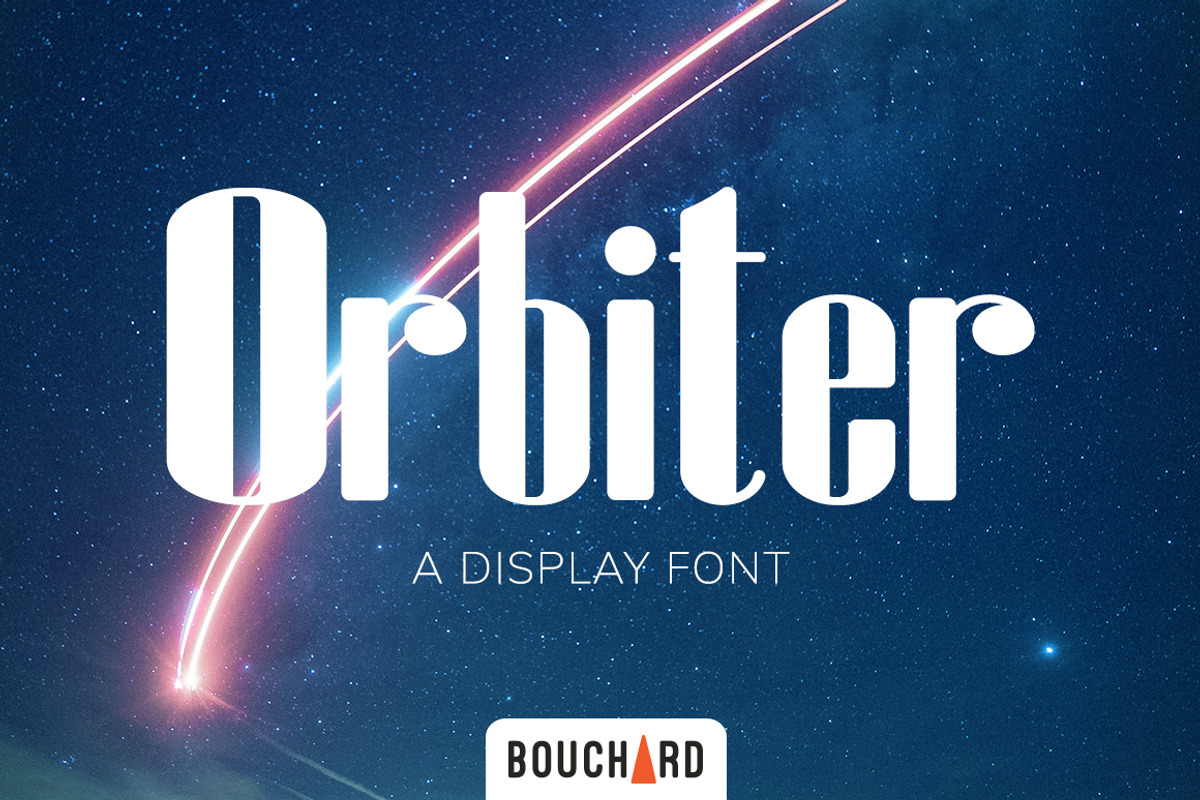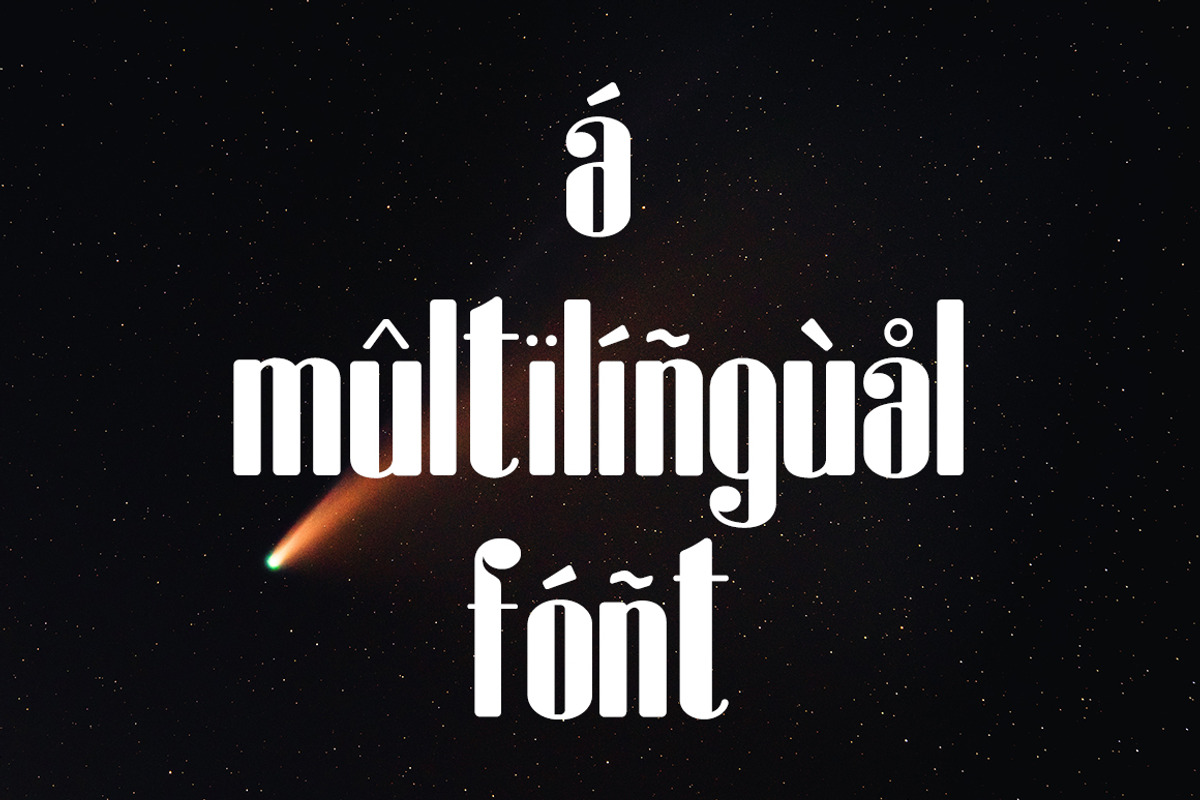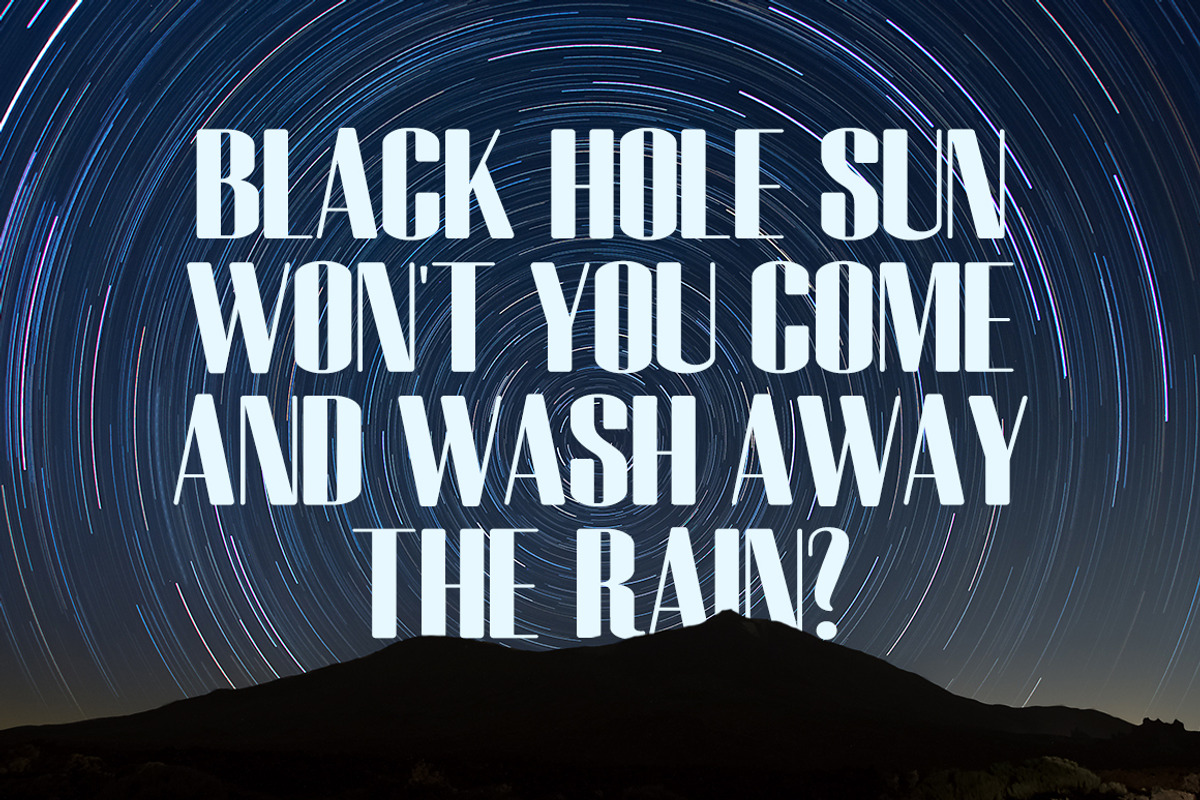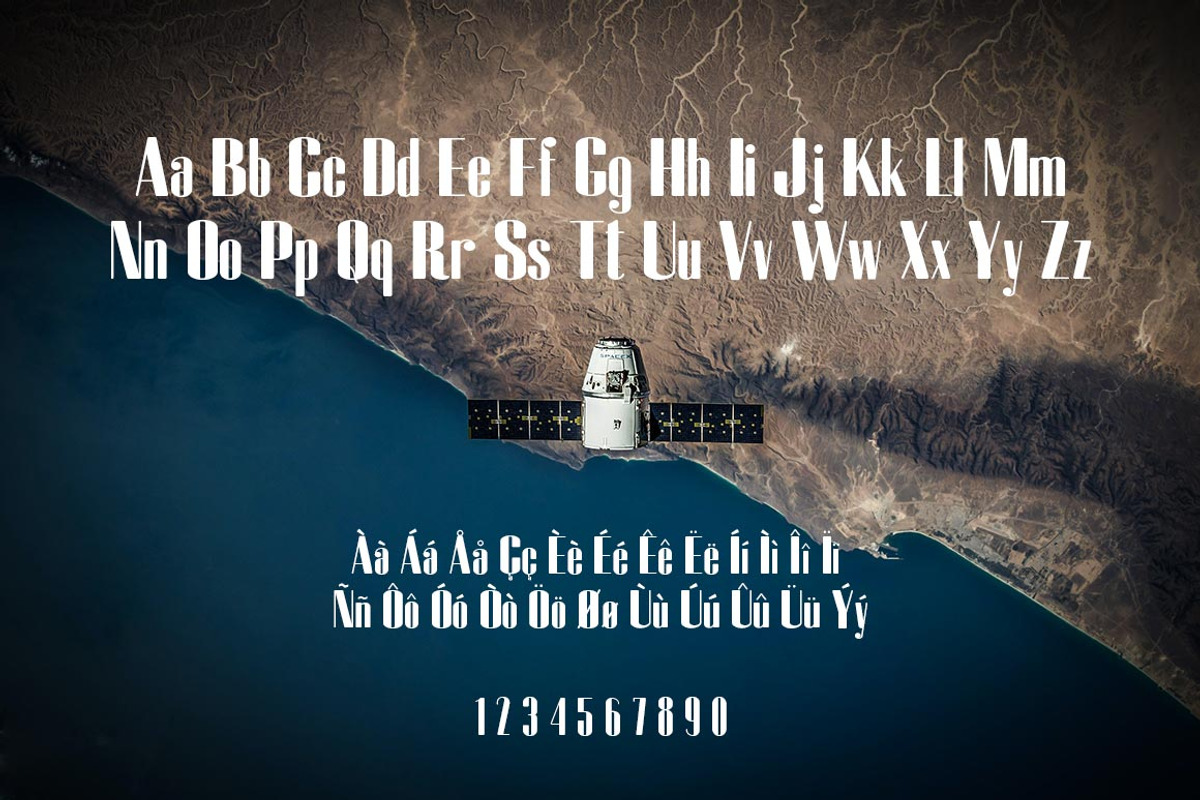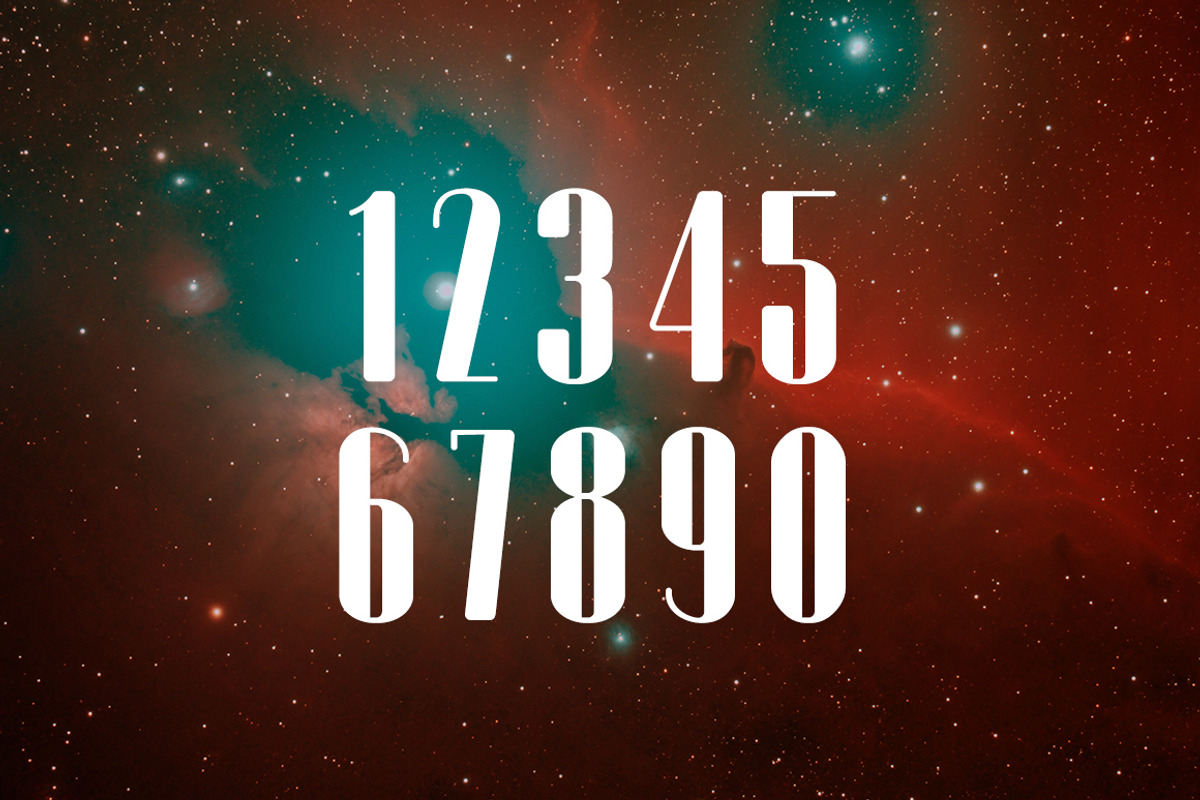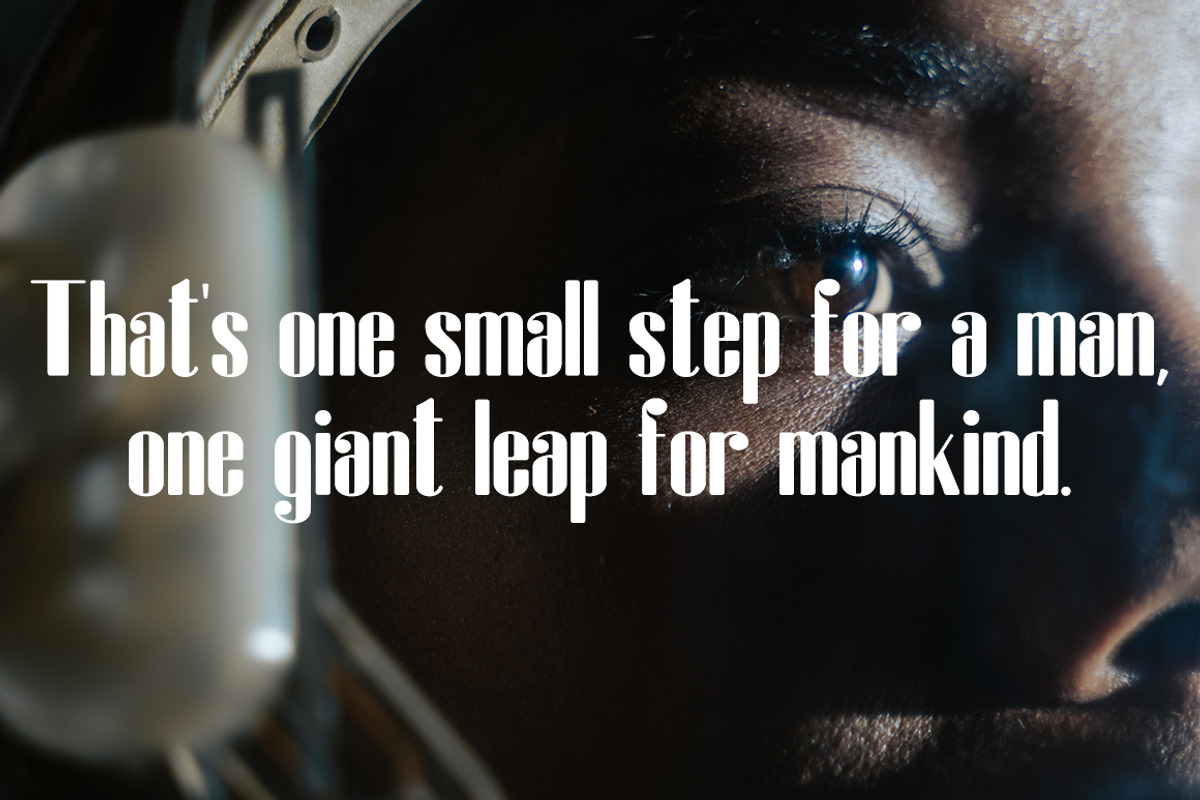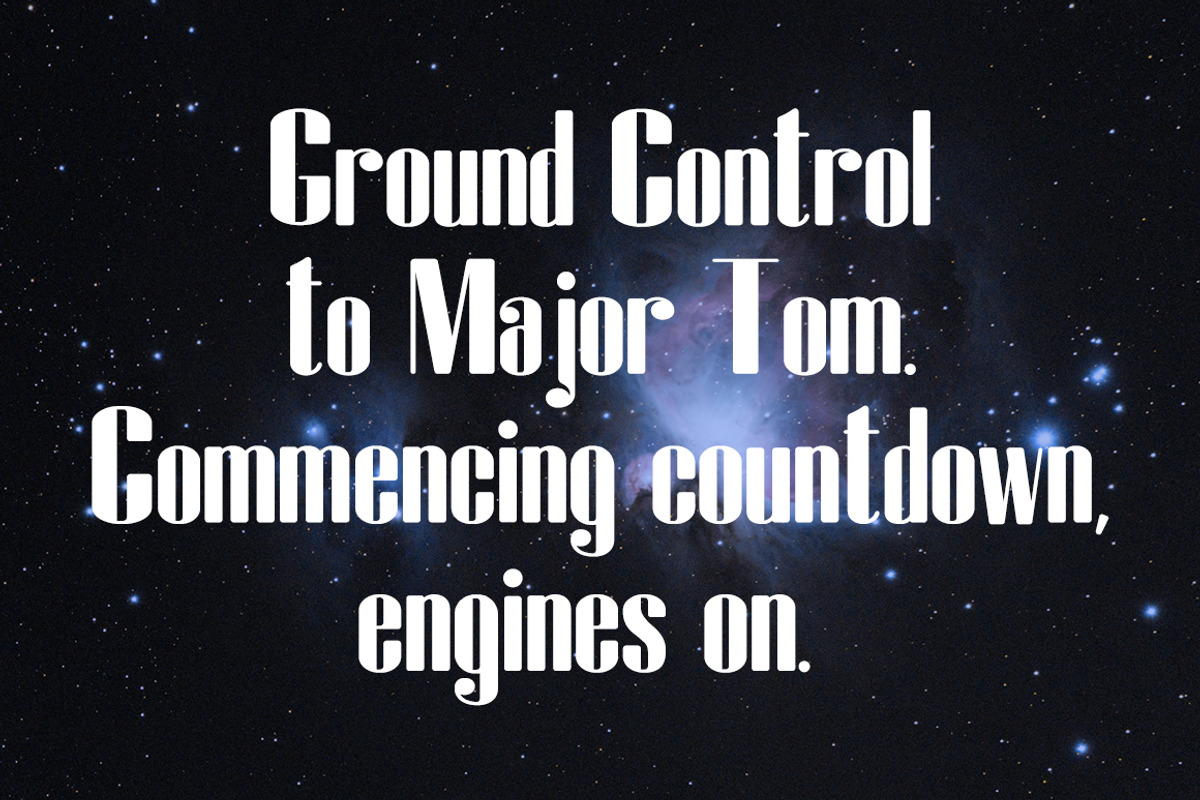
Orbiter - Display Font
Orbiter is a modern display font that comes in uppercase and lower case and includes accents, numbers and punctuation.
Perfect for logo designs, packaging, book covers or any other designs that benefit from bold headings.